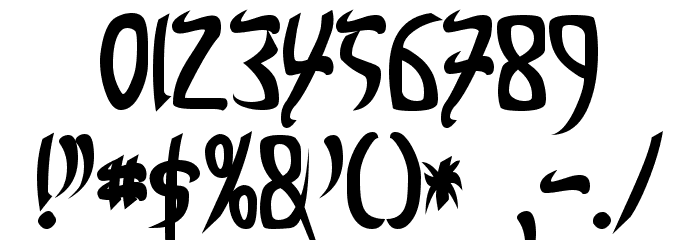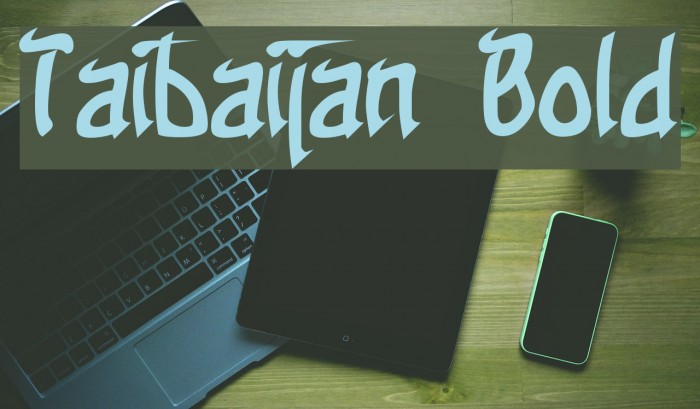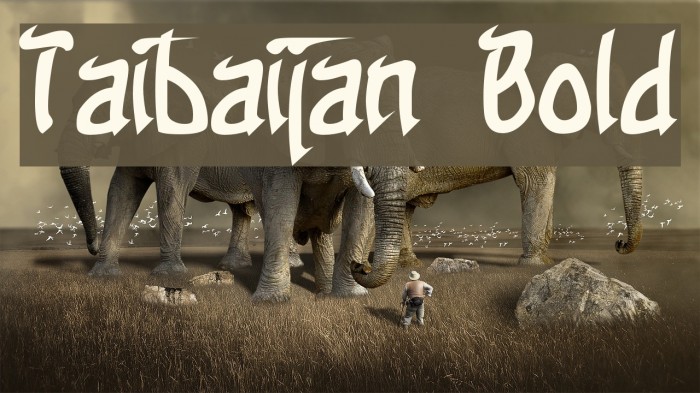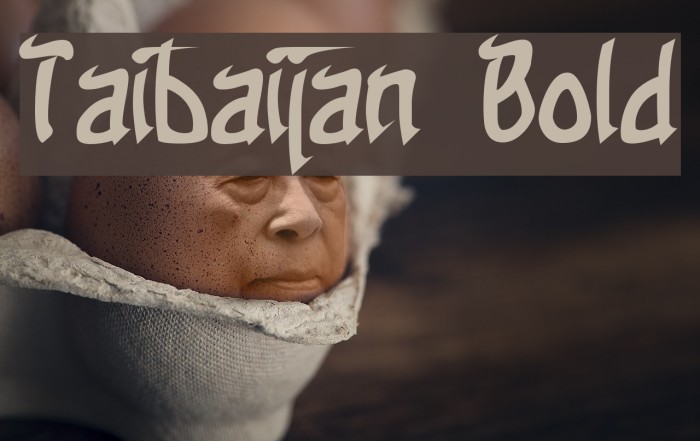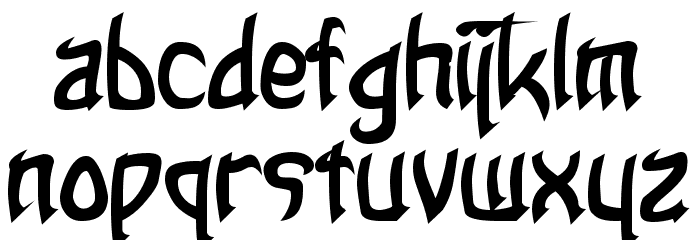
Taibaijan Bold Font
Taibaijan Bold Description
This font features a bold and dynamic style with a distinctively artistic flair. The characters are crafted with a brush-like appearance, giving them a hand-drawn, calligraphic feel. The uppercase letters are particularly striking, with exaggerated curves and sharp angles that create a sense of movement and energy. The lowercase letters maintain this expressive style, though they are slightly more restrained, providing a nice balance. The numerals and special characters are equally bold, ensuring consistency across all glyphs. This font's unique style makes it stand out, offering a creative and eye-catching option for various design projects.
A bold, brush-like font with a dynamic, calligraphic style from Uncategorized fonts.
- Proposed Projects: Ideal for artistic posters, creative branding, and eye-catching headlines.